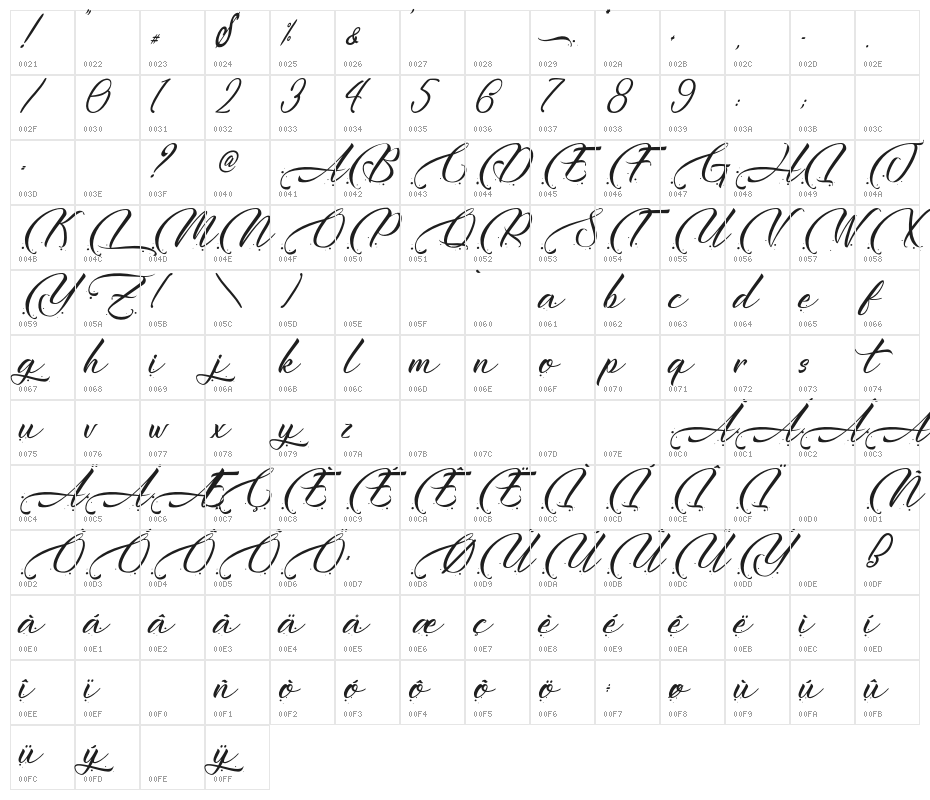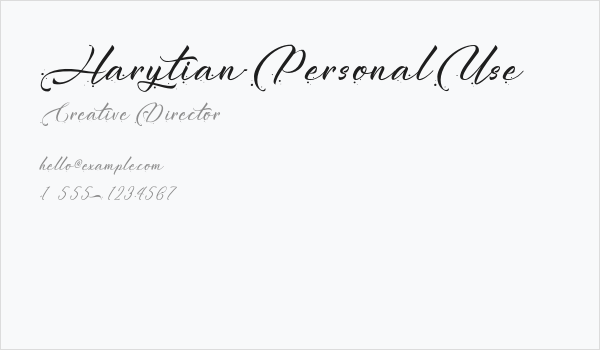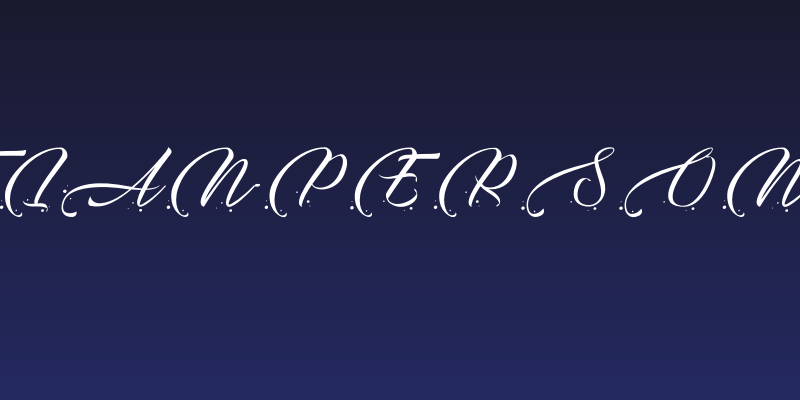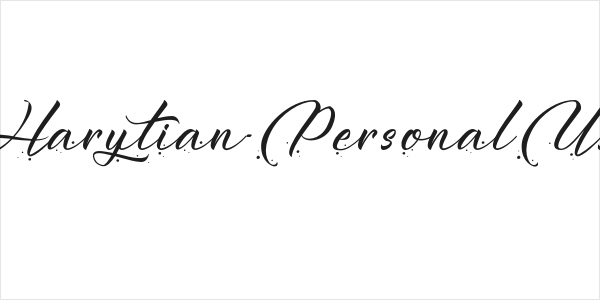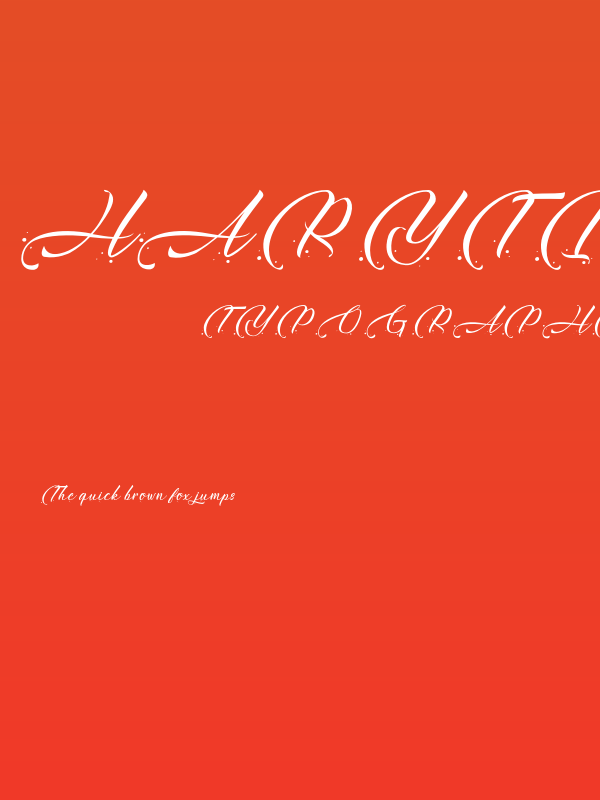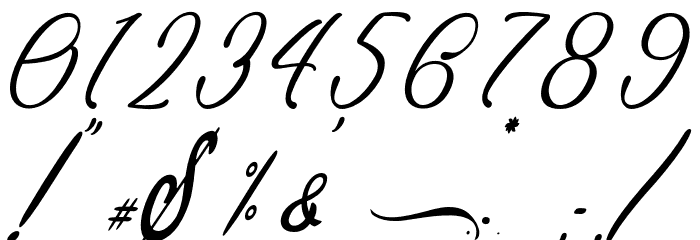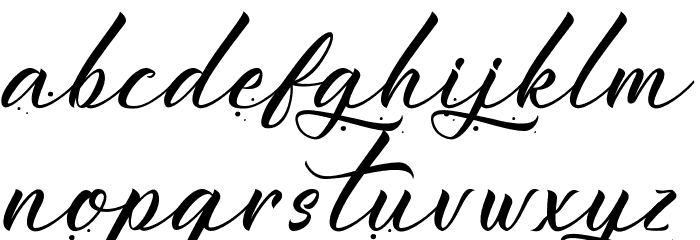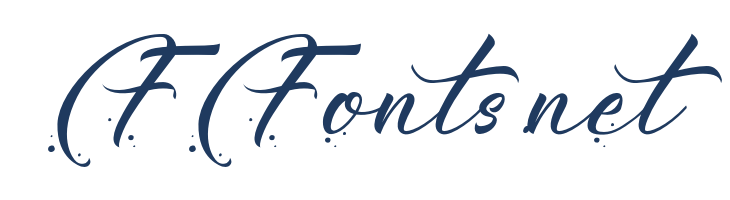
Harytian-PersonalUse Font
This font exudes elegance and sophistication with its flowing, cursive style. The uppercase letters are adorned with delicate swashes, creating a sense of movement and grace. The lowercase letters maintain a consistent flow, with some characters featuring unique loops and flourishes that add to the font's charm. The numerals are stylishly crafted, matching the overall aesthetic. Special characters are thoughtfully designed, ensuring they blend seamlessly with the rest of the typeface. This font is perfect for projects that require a touch of elegance and personality.
| Proposed Projects | Ideal for wedding invitations, greeting cards, branding, and elegant logo designs. |